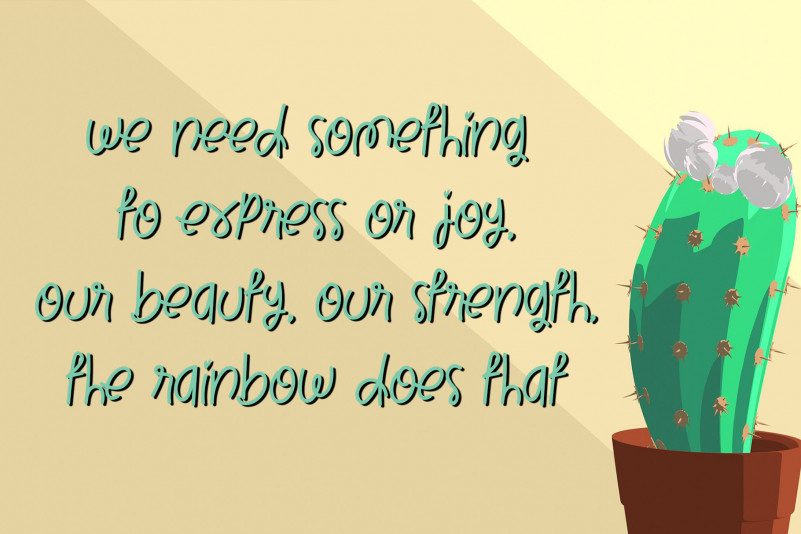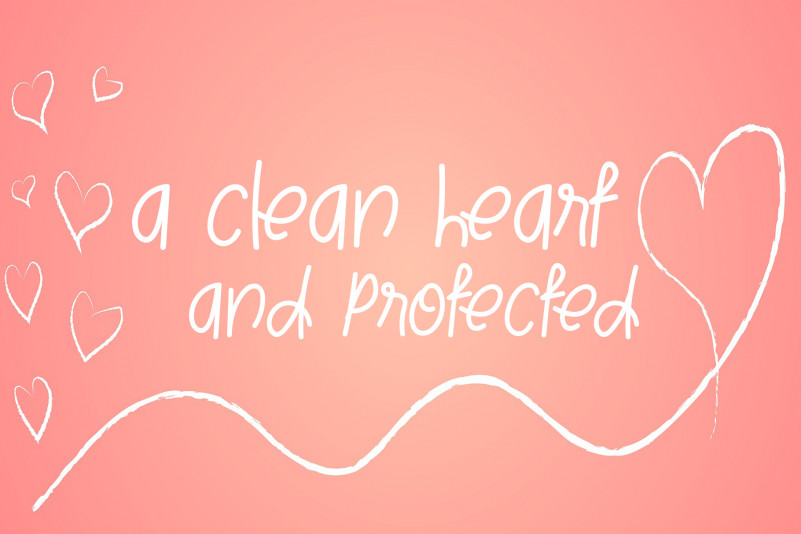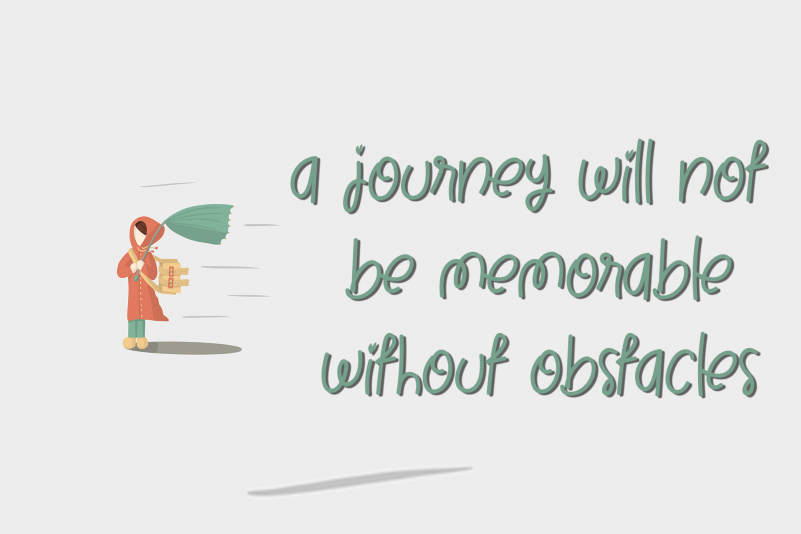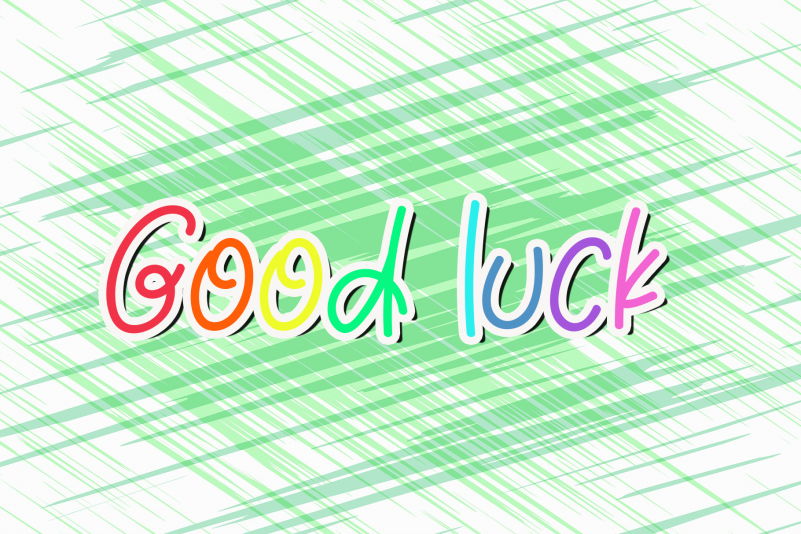
First Stroke Font
First Stroke Display Font
This is a sweet, round, and flexible handwritten font. Warm, quirky, and jolly, this font will turn each of your project ideas into real works of art. Have fun with this beautiful font and explore its endless variations!